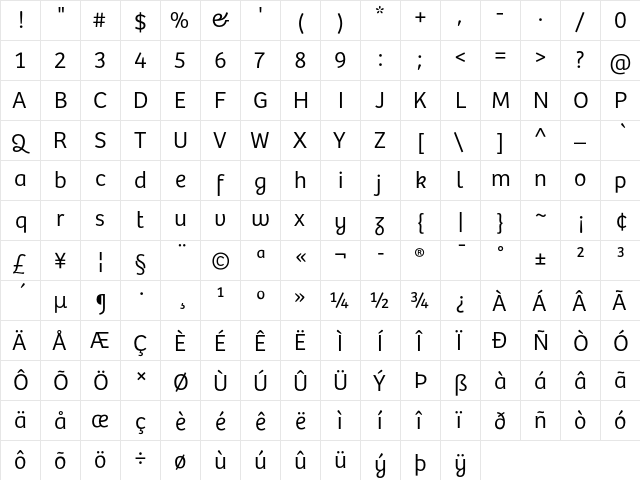
Bree Light
Design Context for Bree Typeface
Bree takes a measured approach to typography — its balanced proportions and neutral character make it a reliable workhorse for both digital and print work. The delicate stroke weight brings airiness and refinement to layouts.